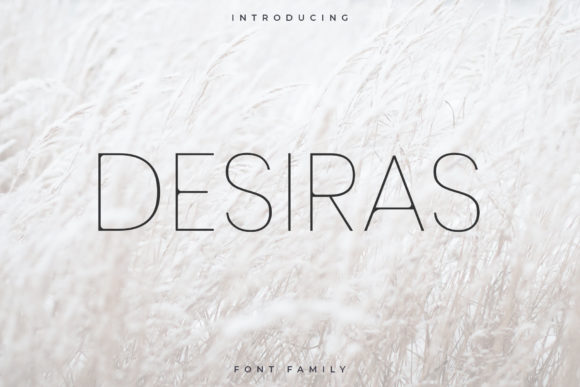
Journey into the realm of minimal aesthetics, where elegance and simplicity converge in perfect harmony. Introducing Desiras, a sans serif font that captures the essence of modern design. Its clean lines, subtle curves, and delicate strokes create a visual masterpiece that elevates your designs to new heights.
Step into a world where your words dance with grace and precision, leaving an indelible mark on the hearts of your audience. Desiras is crafted with meticulous attention to detail, ensuring that every letterform is a testament to beauty and functionality. Its minimalist style exudes a timeless charm, making it the perfect choice for logos, headers, web design, and countless other applications.
With Desiras, you'll embark on a creative journey where form and function intertwine seamlessly. Its versatility knows no bounds, adapting effortlessly to a myriad of design projects. Unleash your imagination and let Desiras's understated elegance elevate your designs, captivating your audience with its understated sophistication.
Experience the allure of Desiras, a font that transcends trends and speaks to the soul. Its minimalist aesthetic invites you to explore the power of simplicity, allowing your message to shine through with unparalleled clarity. Embrace the beauty of minimalism and discover the transformative power of Desiras, a font that will leave an unforgettable impression on your audience.